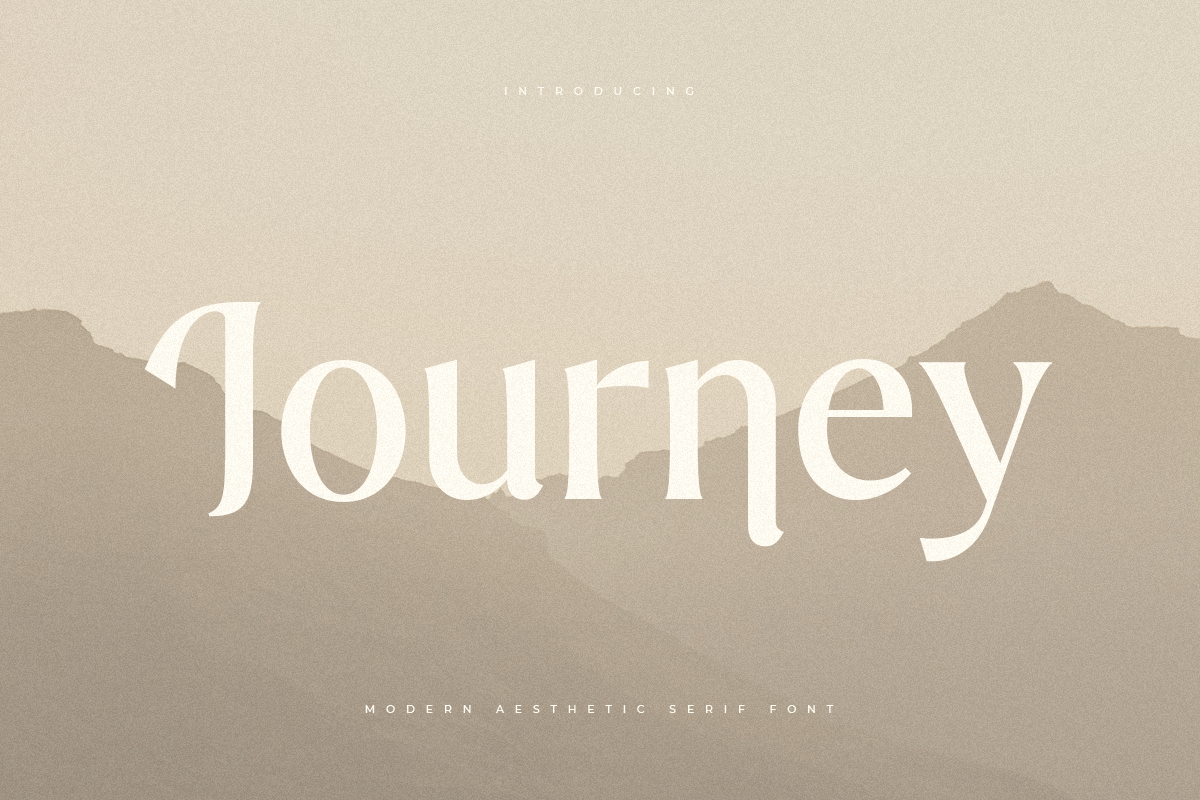
Journey – Aesthetic Serif Font
Elevate your brand with Journey, a sophisticated serif font crafted for elegant and modern design needs. This display typeface delivers aesthetic appeal perfect for designers and product owners seeking to create refined, contemporary visuals. Journey offers unlimited creative possibilities with its comprehensive character set and stylistic alternatives. Complete font family includes: Journey Regular (.otf .ttf .woff .woff2) Journey Italic (.otf .ttf .woff .woff2) Journey Bold (.otf .ttf .woff .w...